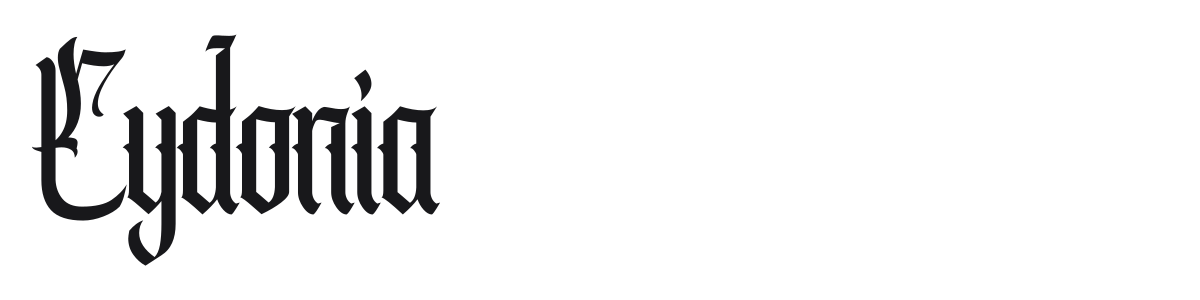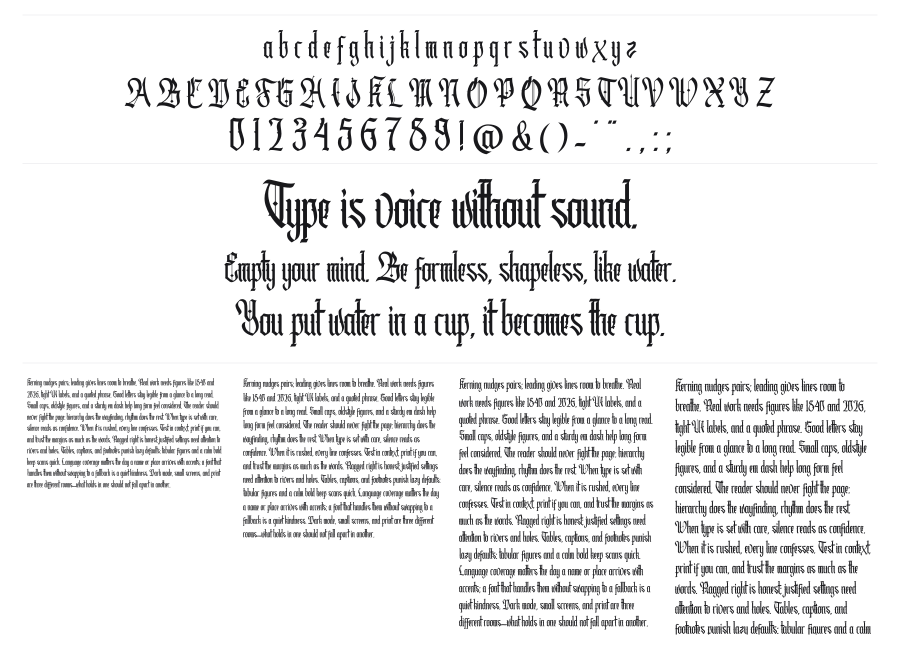
Cydonia
Cydonia is a bold Gothic blackletter with extreme stroke contrast and sharp, pointed terminals that give it a menacing, medieval edge. Letters compress tightly together with angular junctions that echo Textura traditions while feeling contemporary and aggressive. Strong for heavy display work, band logos, apparel, and anything that needs dark character.